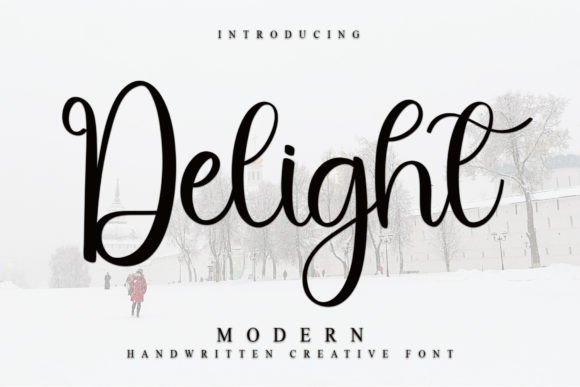
Unlock the Magic of Handwritten Design with Delight Font
There’s something special about receiving a handwritten note from a loved one – it’s a personal touch that makes the message feel truly special. As designers, we know that this feeling can be replicated in our designs with the right font. Enter Delight Font, a stunning script font that adds a touch of elegance to any project.
Whether you’re creating wedding invitations, thank you cards, or business cards, Delight Font is the perfect choice to give your designs a handwritten touch. Its versatility and sophistication make it a valuable asset for designers looking to elevate their work.
Delight Font Key Features
- Font Styles: Delight Font comes in 6 different font styles, including Delight Regular, Delight Italic, Delight Bold, Delight Bold Italic, Delight Outline, and Delight Shadow.
- Character Set: Includes a wide range of characters, including Latin, Cyrillic, and Greek alphabets, as well as punctuation and symbols.
- Unique Characteristics: Delight Font features a unique, hand-drawn design with subtle brush strokes and intricate details, giving it a distinctive and elegant look.
Delight Font Review
Overall, I was really excited to dive into the Delight Font, but as I started exploring its features, I found it to be a mixed bag. ✨ One thing that stands out is its beautiful, playful script design. The font is perfect for adding a touch of whimsy to your designs, whether it’s a logo, a poster, or a social media graphic.
Here are some of the things that I like about Delight Font:
- ✨ Unique and playful script design
- ✨ High-quality vector graphics
- ✨ Easy to customize and edit
- ⚠️ Limited font weight options
- ⚠️ Not ideal for body text, due to its script nature
- ⚠️ May require additional formatting for optimal display on certain devices
Overall, I think Delight Font is a great choice for designers who want to add a touch of personality to their work. While it may not be the most versatile font, it’s perfect for specific design projects that require a playful, handwritten feel. With some creative formatting and editing, Delight Font can add a lot of charm to your designs.
To get the most out of Delight Font, use it in combination with bold or italic styles to create emphasis. You can also use it in conjunction with other fonts to create a unique typography style. Experiment with different font sizes and styles to find the perfect balance for your design.
Delight Font is commonly used in creative projects such as branding, advertising, and editorial design. It’s particularly effective for creating a playful and whimsical atmosphere. Use it in headings, subheadings, and body text to add visual interest and personality to your design.